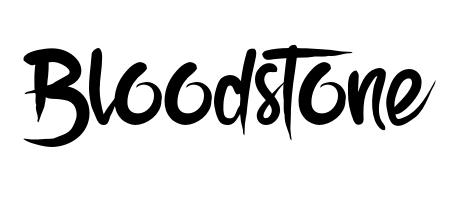
Bloodstone
By Faisal Tanjung
Bloodstone: A bold, evocative script font dripping with gothic charm. Its sharp angles and fluid curves suggest both power and elegance, perfect for titles, logos, or any project demanding a darkly romantic touch. Think ancient magic, forbidden lore, and captivating mystery.